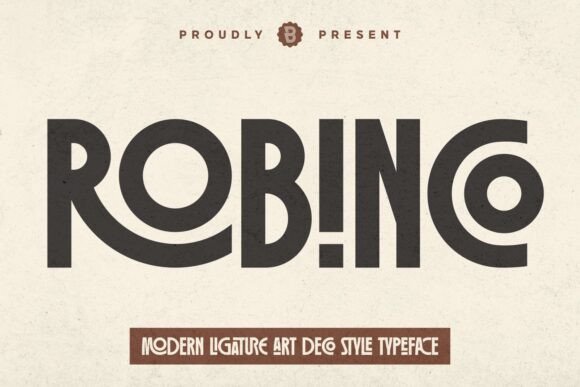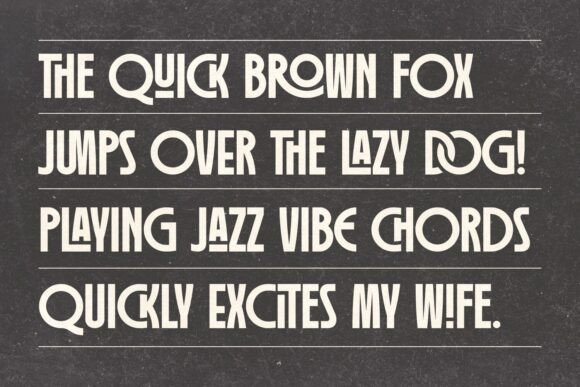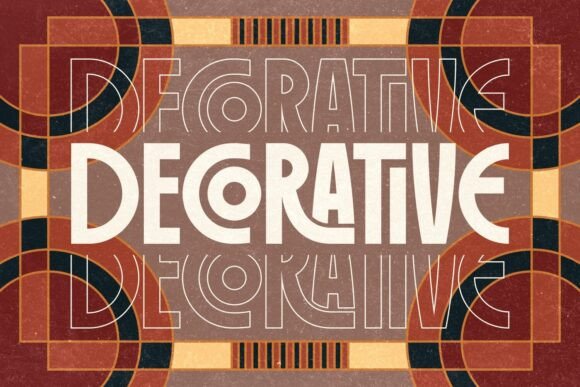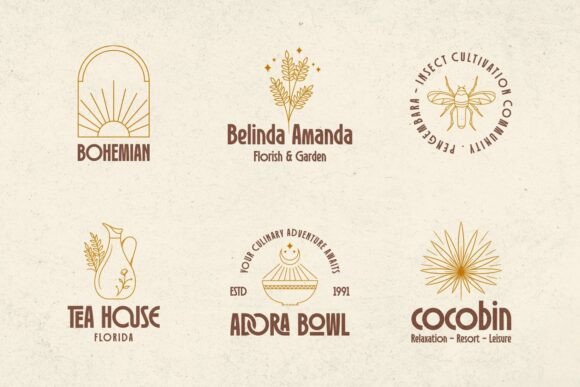
Robinco Font: Modern Art Deco Typography for Unique Logo Design
About the Robinco Font
Add a touch of class to your work with the Robinco Font, a truly exceptional typeface. Robinco is a modern ligature art deco style font. This font embodies a timeless combination of luxury, boldness, and geometric elegance, making it perfect for designs that seek to evoke a sense of classic sophistication and modernity. This font is suitable for trendy packaging label designs, unique desired logos, poster designs, fashion, and many more.
Robinco’s strong geometric forms and art deco influences make it ideal for headlines, logos, and short impactful text on packaging or posters. Its bold nature commands attention, making it less suitable for body text or UI elements where readability over long stretches is crucial. Avoid using it for lengthy paragraphs; the high contrast and decorative elements can hinder comprehension.
This font’s personality is assertive yet refined. Brands seeking to project a sense of sophisticated luxury or modern elegance would find Robinco a strong choice. Think high-end fashion, premium spirits, or art galleries.
To complement Robinco, consider pairing it with a clean sans-serif like Montserrat for body text, providing a balanced contrast between boldness and readability. Alternatively, a delicate serif like Playfair Display can add a touch of classic elegance, while a geometric sans-serif like Futura will enhance the modern, art deco feel.
Robinco Font Usage Examples
Robinco Font Example